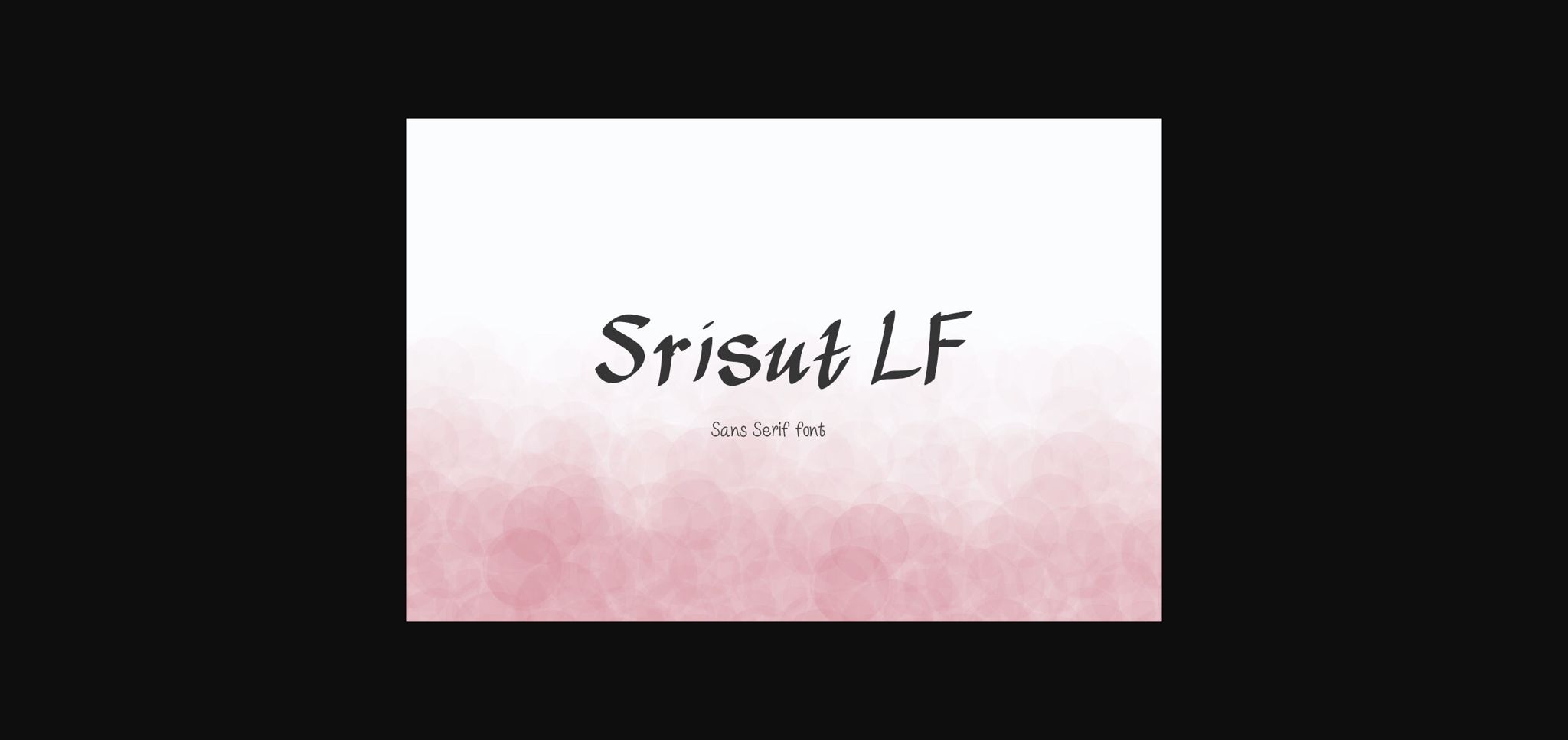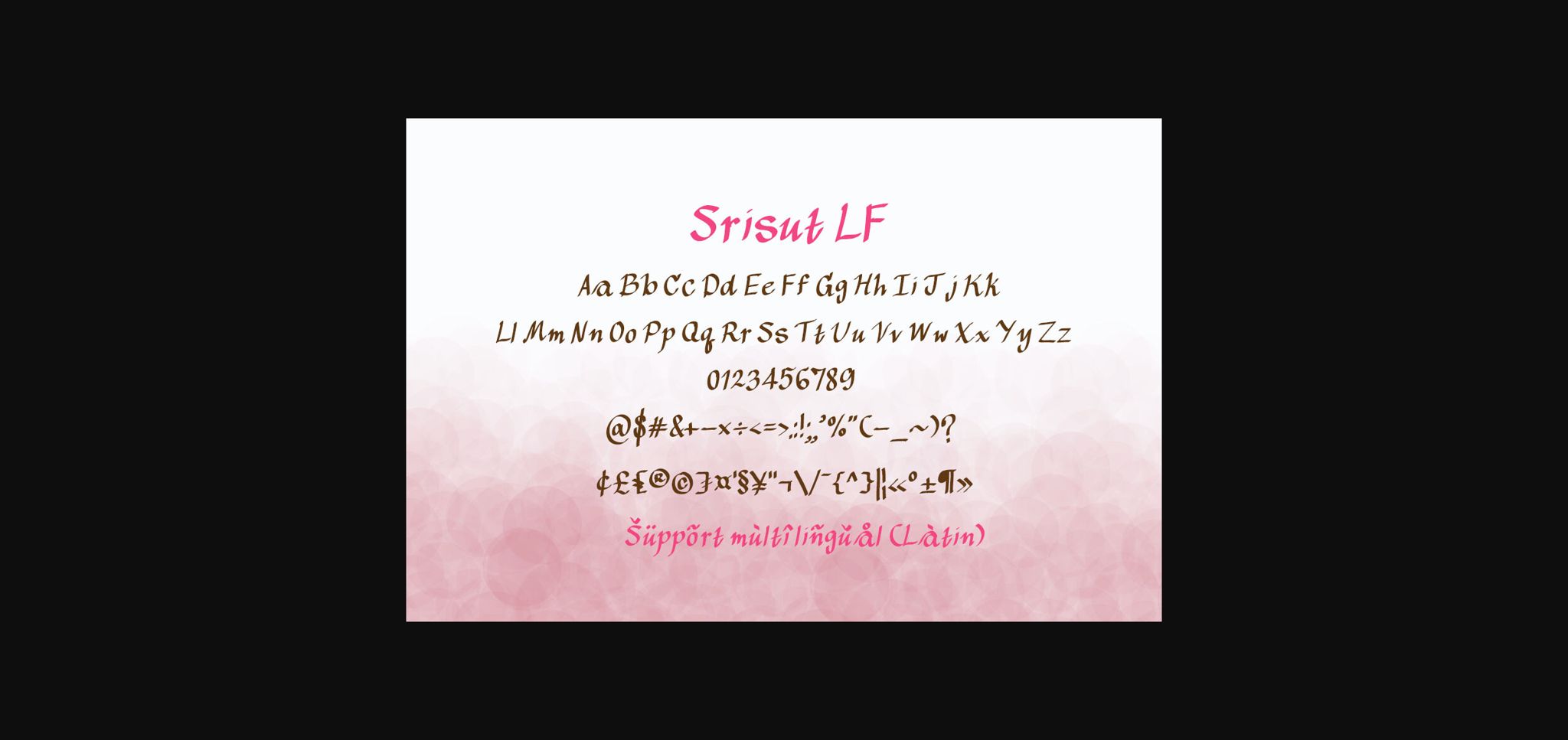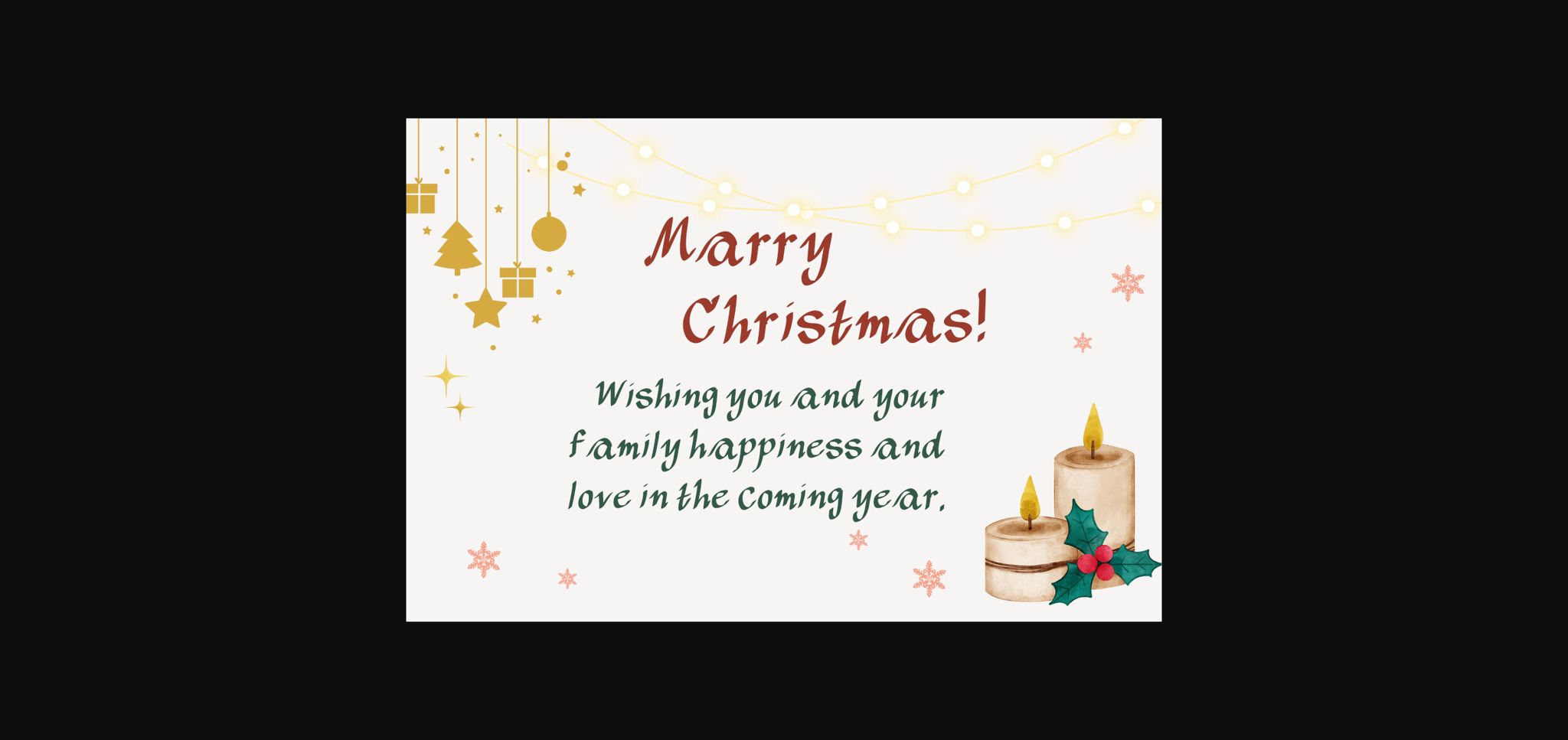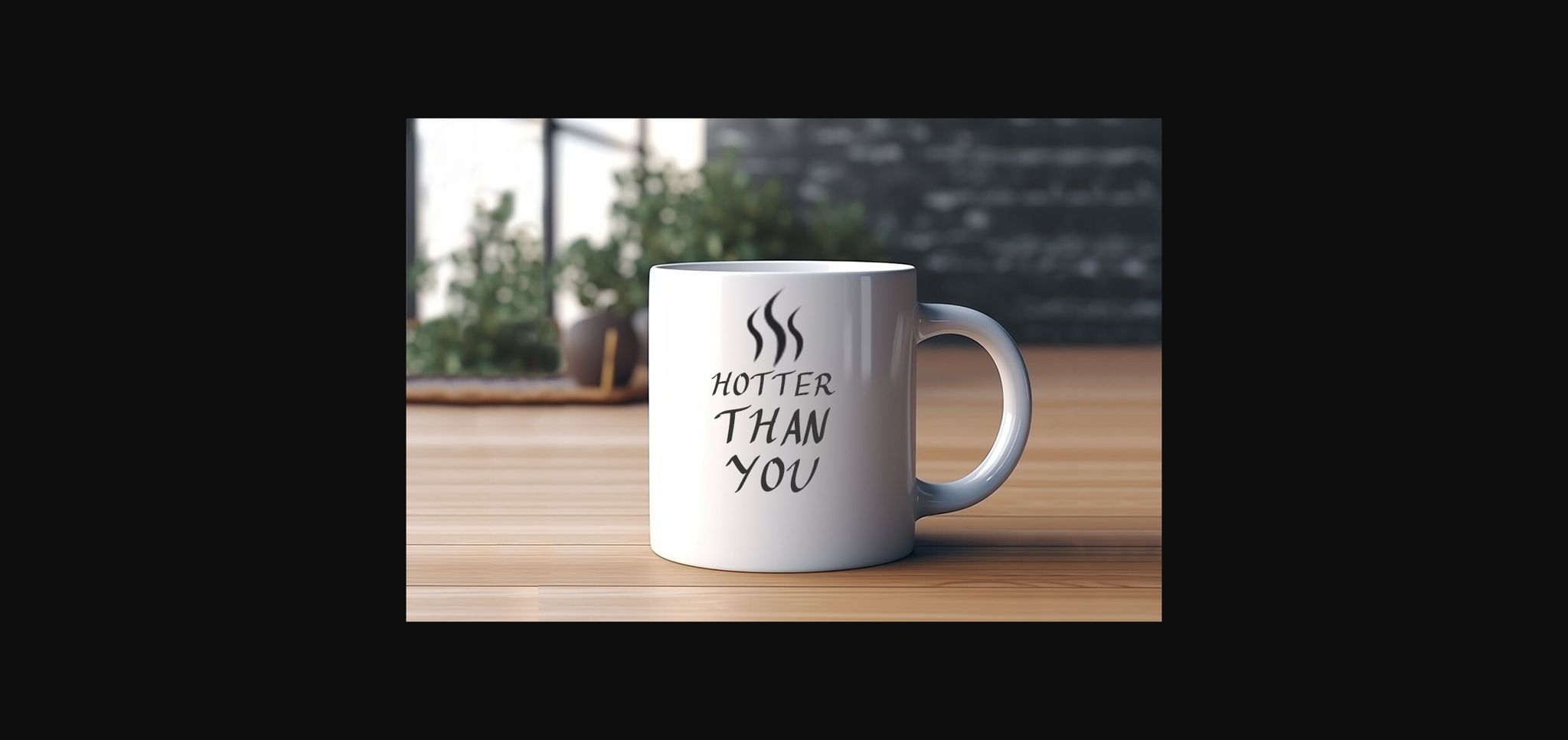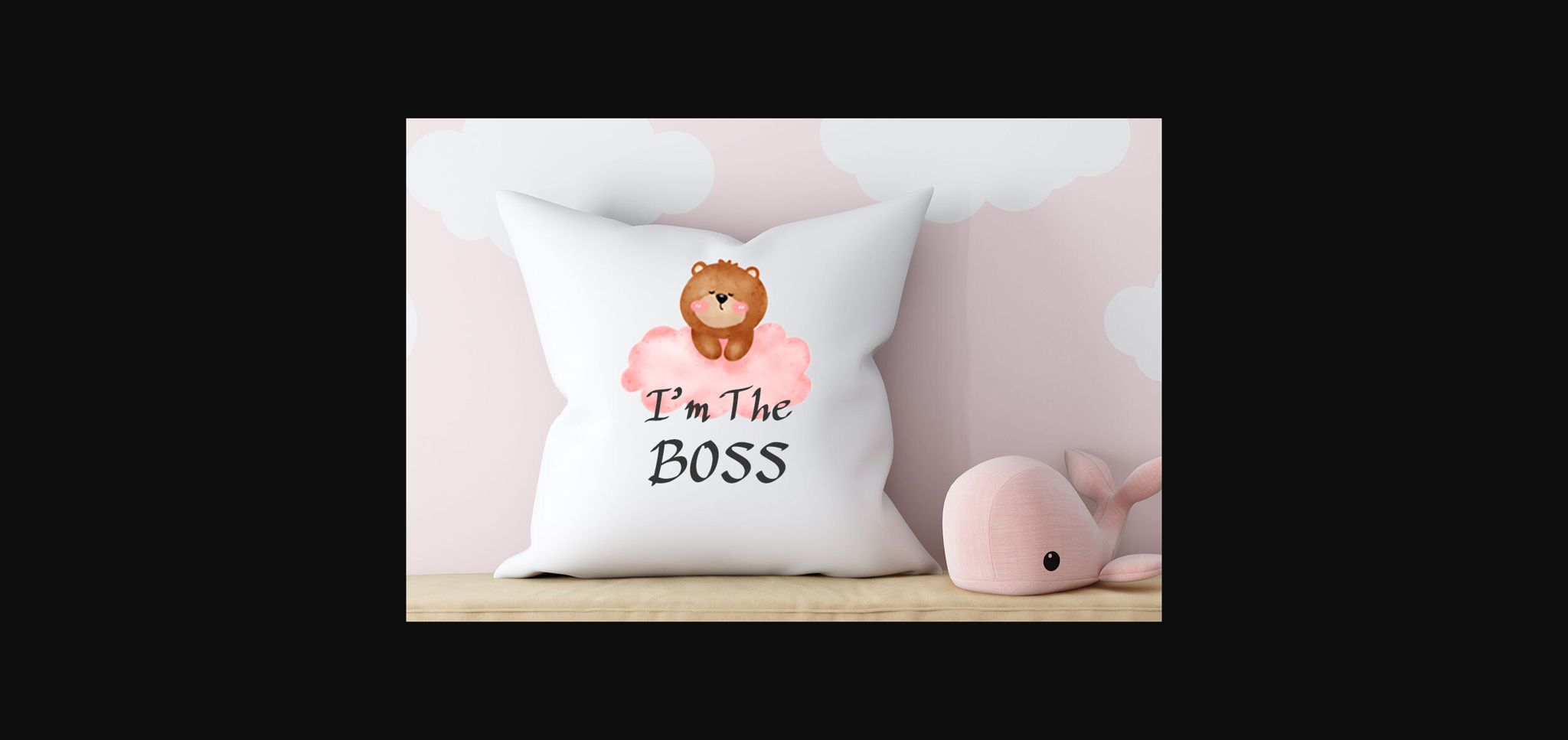
About Srisut Lf Font
Srisut LF is a sharp and quirky handwritten font. Fall for its ravishing style and use it to create gorgeous create Product Packaging, posters, headlines, thank you cards, quotes, greeting cards, logos, blogs, bag, T Shirt, clothing and many more!